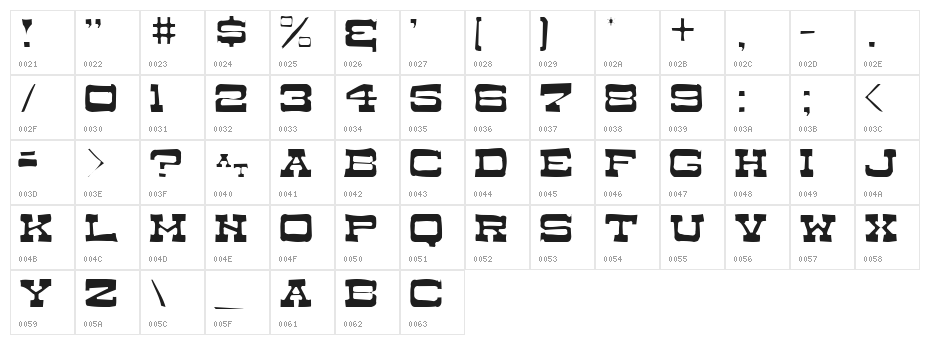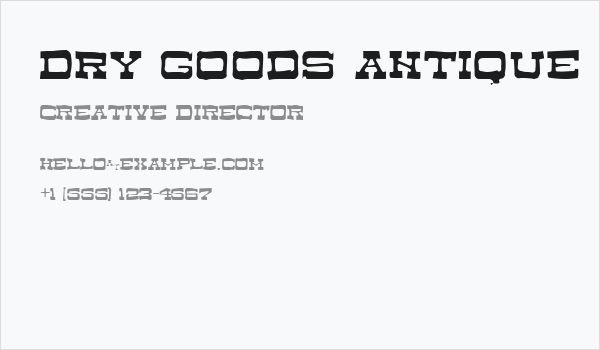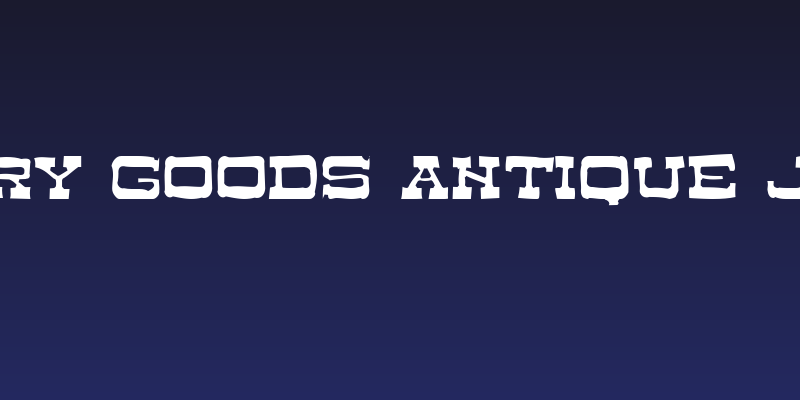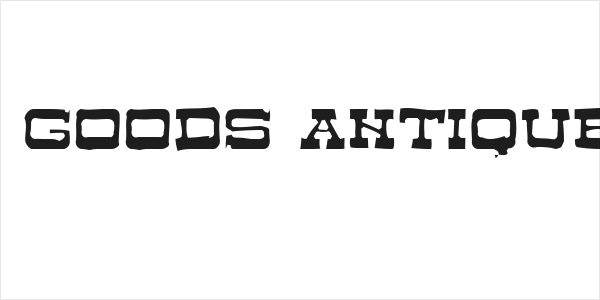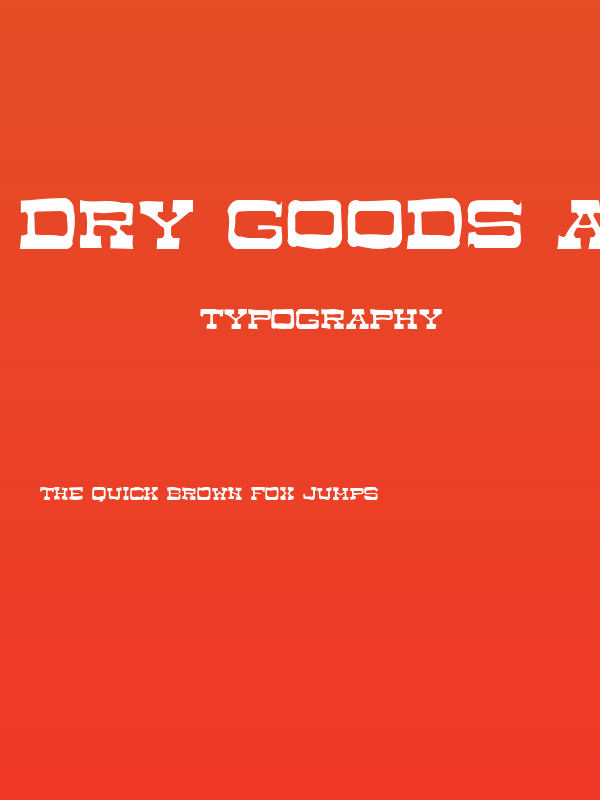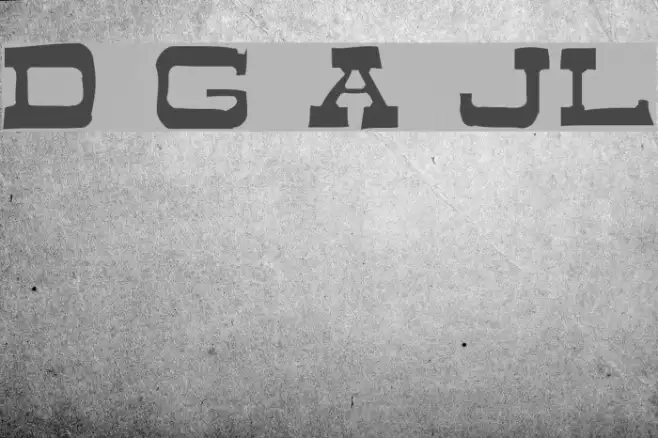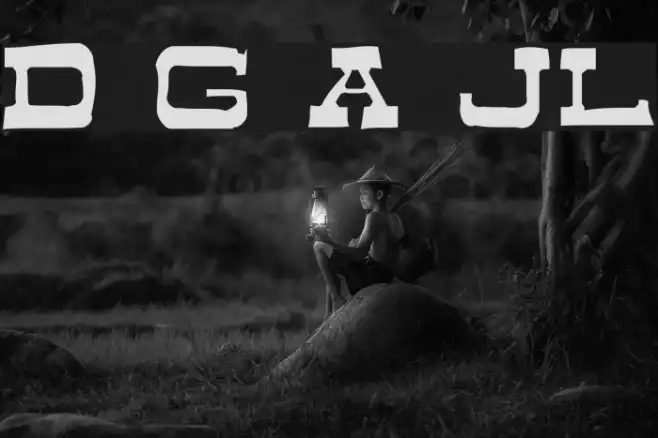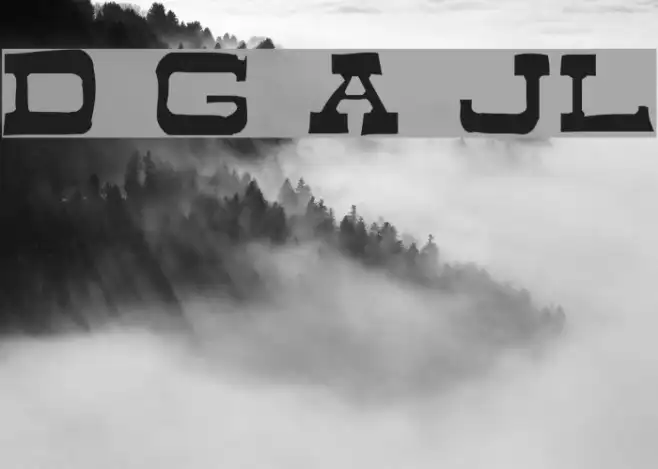
Dry Goods Antique JL Font
Dry Goods Antique JL Description
This font features a bold and rugged design, reminiscent of vintage Western typography. The characters have a strong slab serif style with thick, blocky strokes and slightly irregular edges, giving it an antique and handcrafted feel. The uppercase letters are particularly striking, with a commanding presence that makes them ideal for attention-grabbing headlines. The numerals and special characters maintain the same robust aesthetic, ensuring consistency across all text elements. This font's unique style is perfect for projects that require a touch of nostalgia or a rustic, old-world charm.
| Use Case | Headlines, Logos, Decorative text |
| Proposed Projects | Ideal for Western-themed designs, vintage posters, branding for rustic products, and decorative signage. |